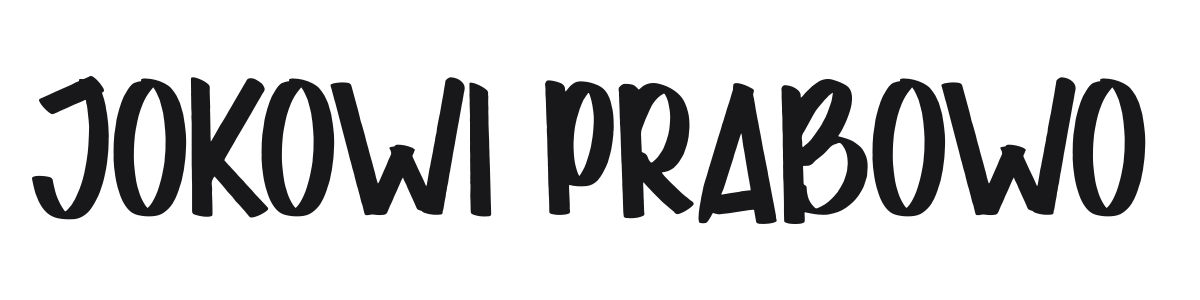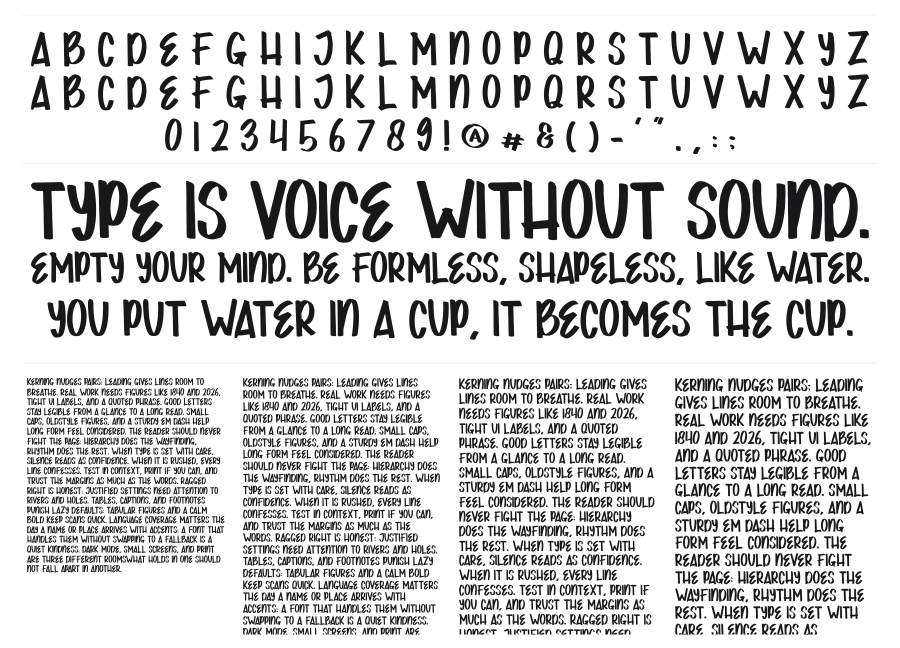
Jokowi Prabowo
by Nirmana Visual · Website
Jokowi Prabowo is a bold upright brush font with raw, hand-lettered energy and strong stroke contrast. Its slightly condensed proportions and irregular ink texture give it the feel of something chalked on a board or painted on a wall. Works well wherever a design needs warmth and immediacy at large sizes.